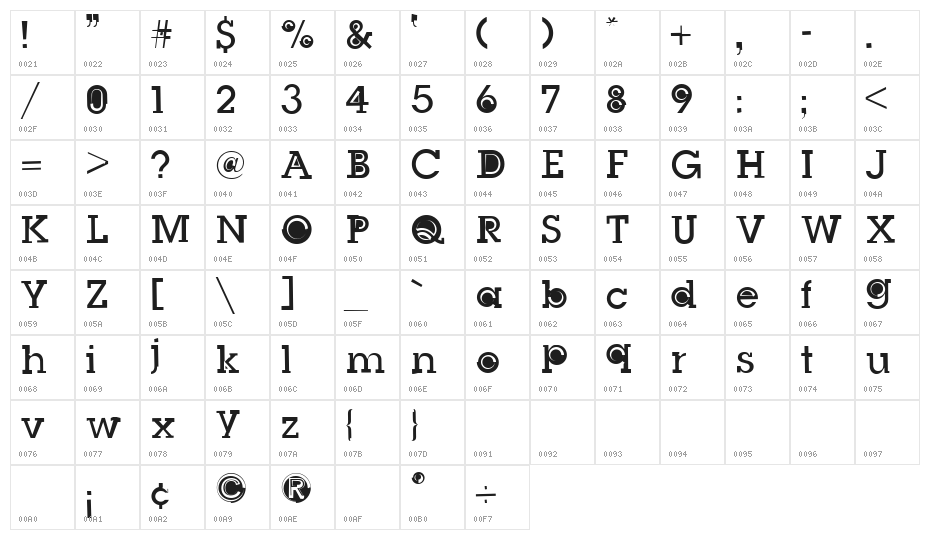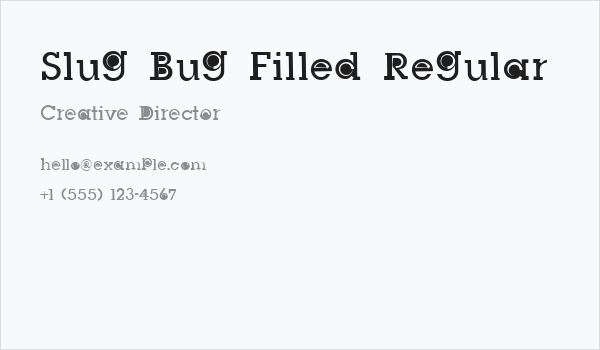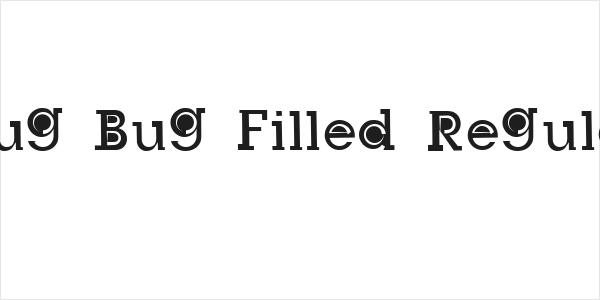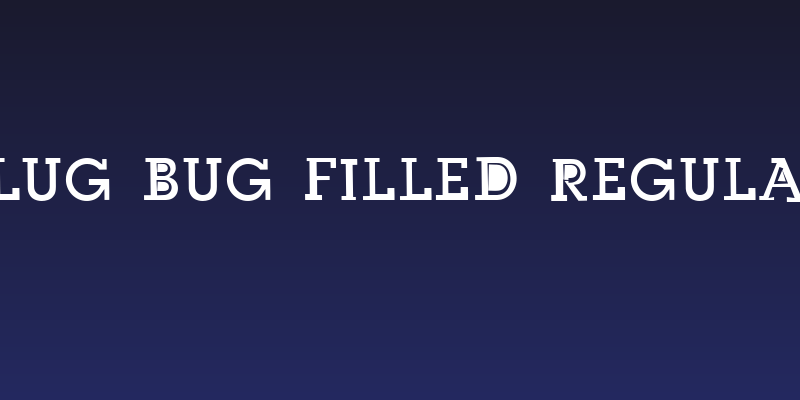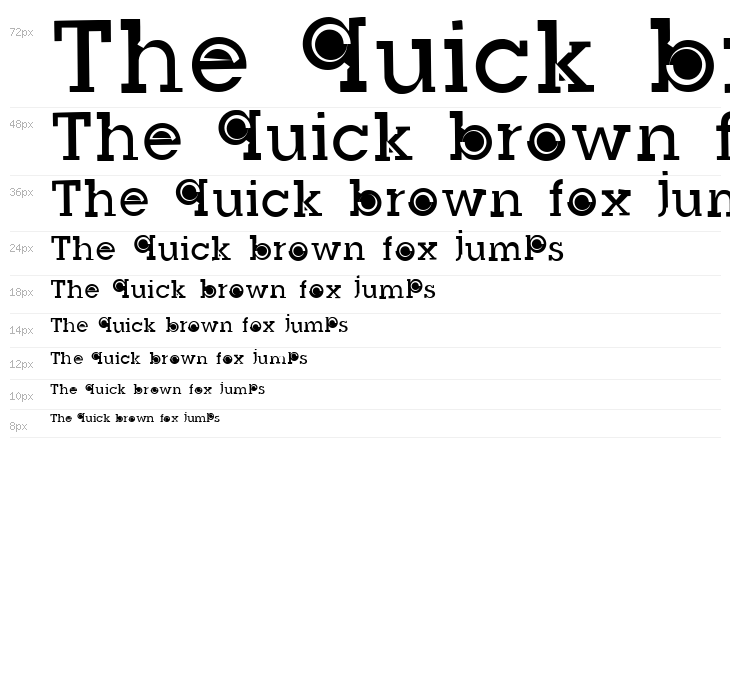
Slug Bug Filled Regular Font
Slug Bug Filled Regular Description
This font exhibits a bold and playful character with a unique filled style that adds a sense of whimsy and creativity. The uppercase letters are distinct with a strong presence, while the lowercase letters maintain a consistent style that complements the overall design. The numerals are clear and bold, ensuring readability. Special characters are creatively designed, adding to the font's decorative appeal. The font's filled nature gives it a substantial look, making it stand out in any design.